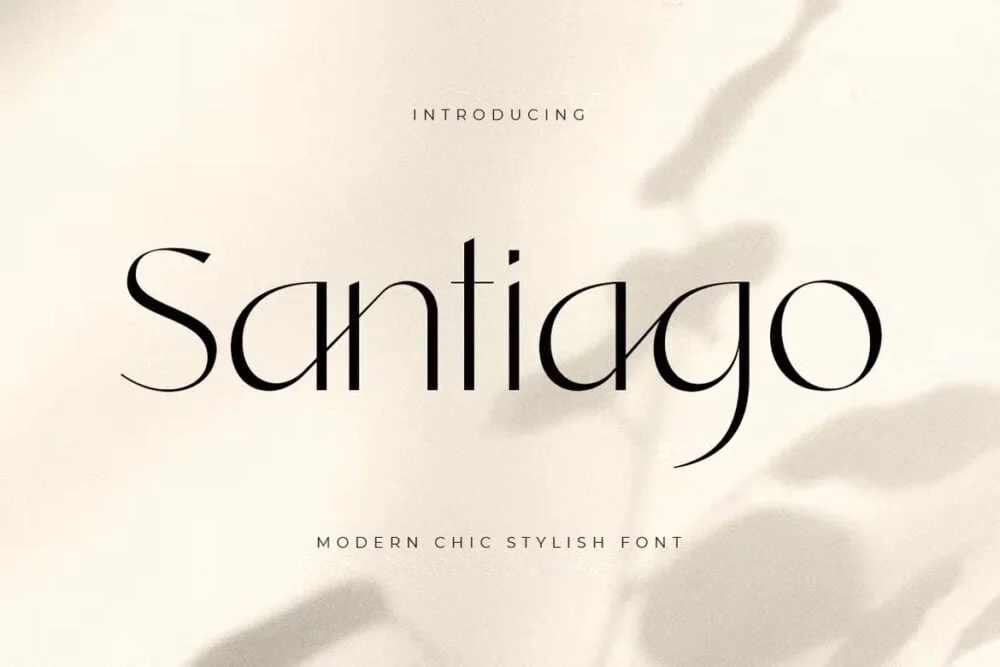
Santiago Font is A Modern Chic Stylish font that is specially crafted with love to make your brand stand out. A new font that we created especially for branding needs, with unique characters and awesome ligature characters is ready to add value to your brand. It is so nice to leverage designers or product owners that need solutions to make their design look more beautiful, chic, and modern. And especially for font, We prepared any ligature characters to help you create unlimited variations for your creative needs.
Modern chic font ready with:
- Any options to get creative variations (combination of Ligature)
- Ready with Lowercase and Uppercase characters